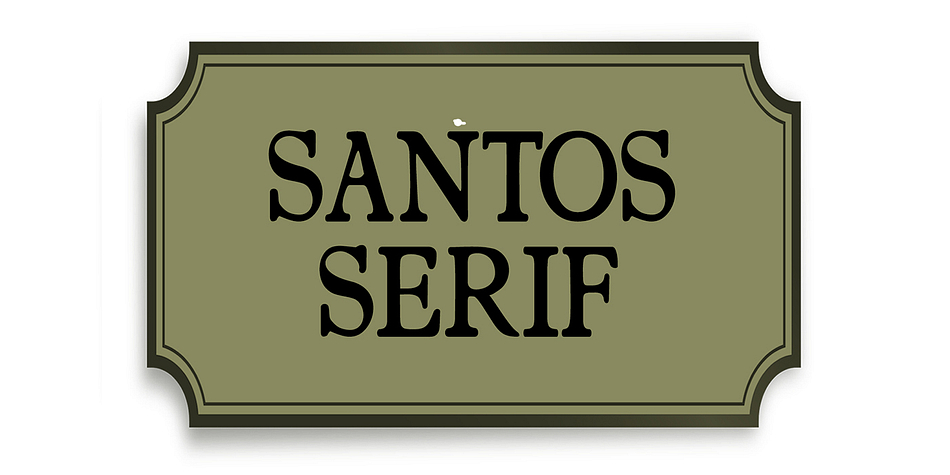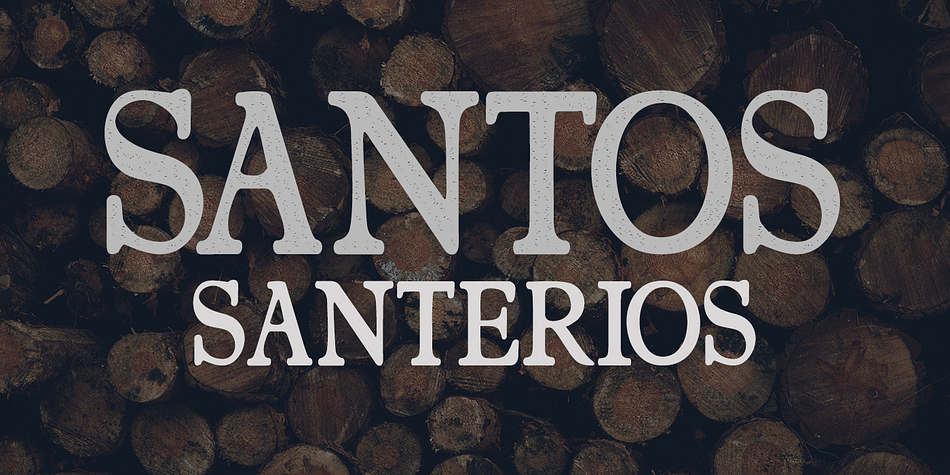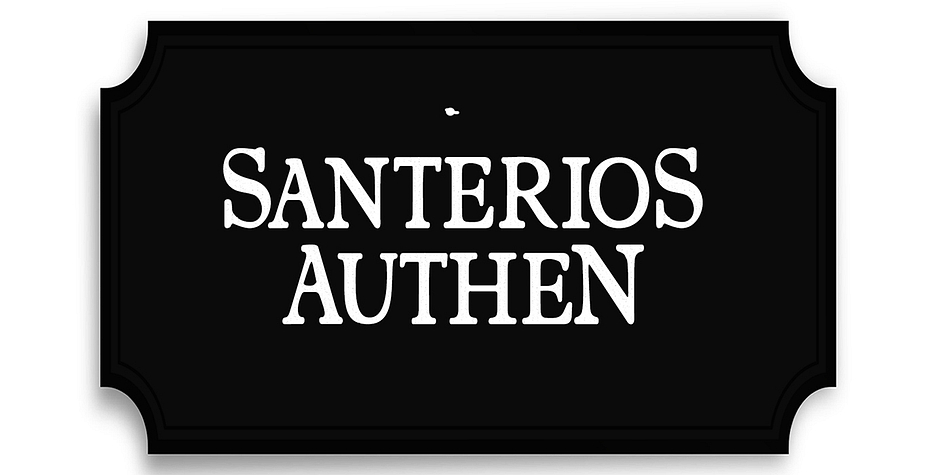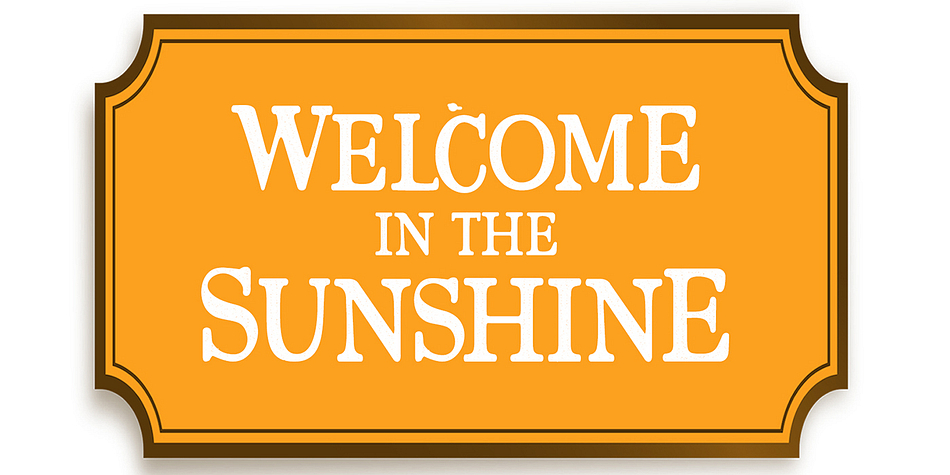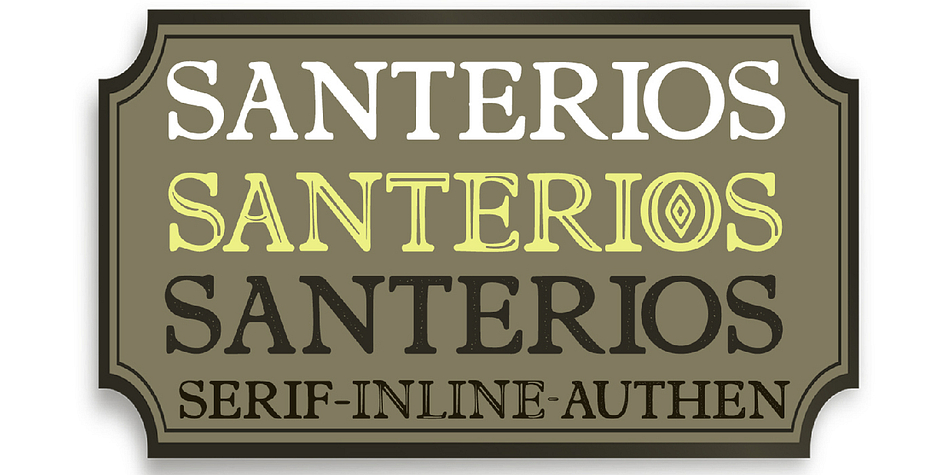
Santerios Santos is a display serif and hand display font family. This typeface has seven styles and was published by Fontasticlab.
This is the starting point for creating beautiful things. Santerios existing Serif & Serif font Santos smart and perfect. expressive beautiful in your design style. Hopefully, with this font you can create a quote or make a logo. Making things beautiful or celebrate your special moments, things are very proud to support your efforts, thanks enjoy!